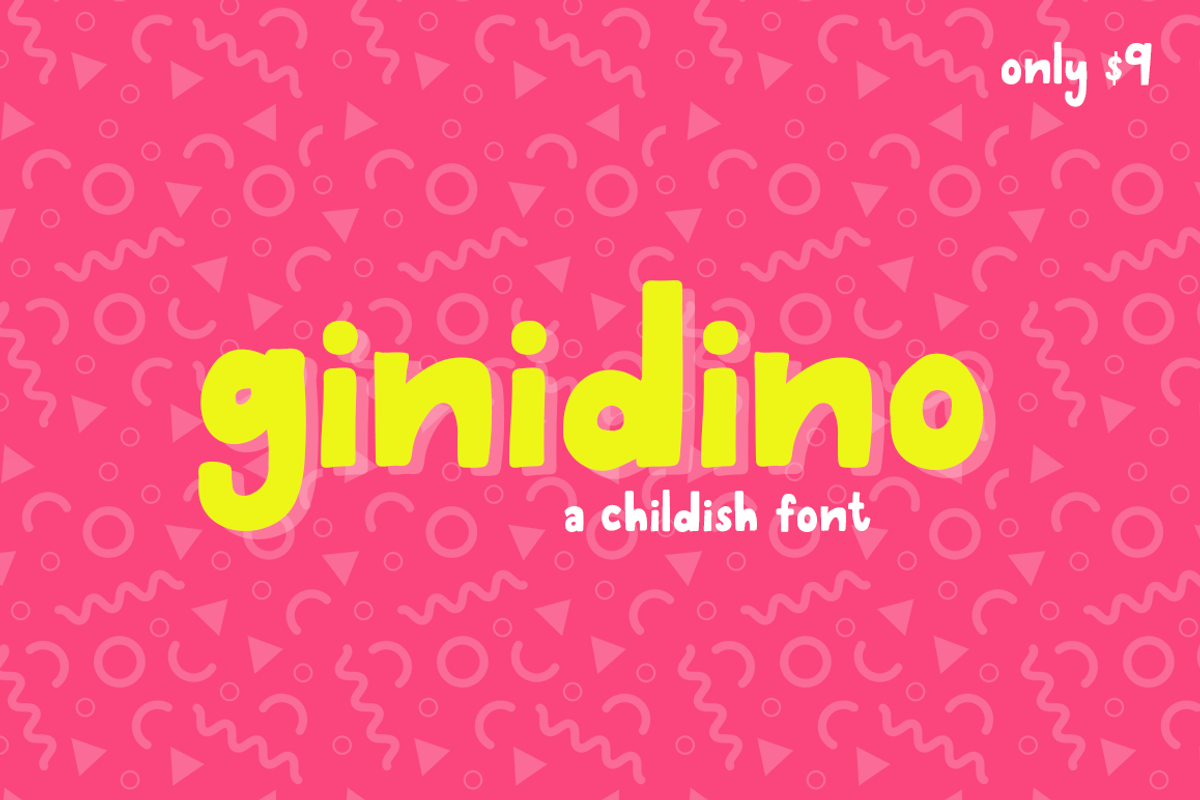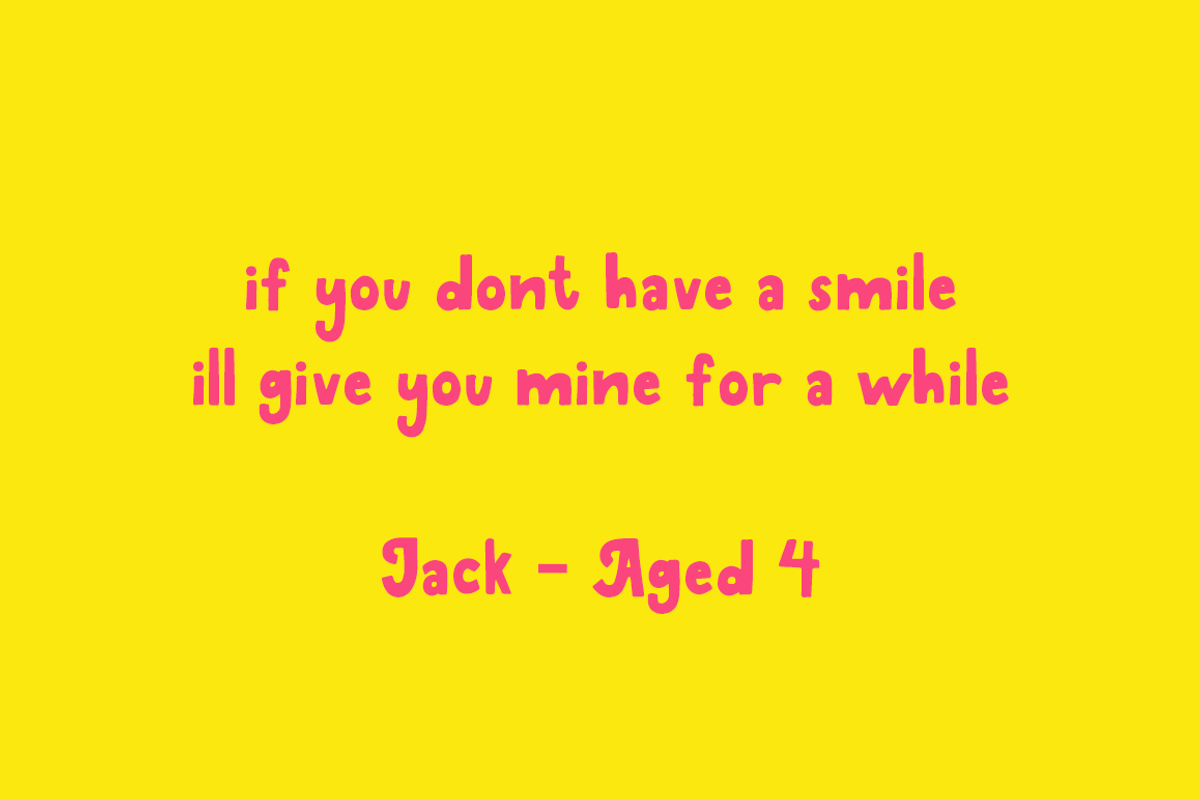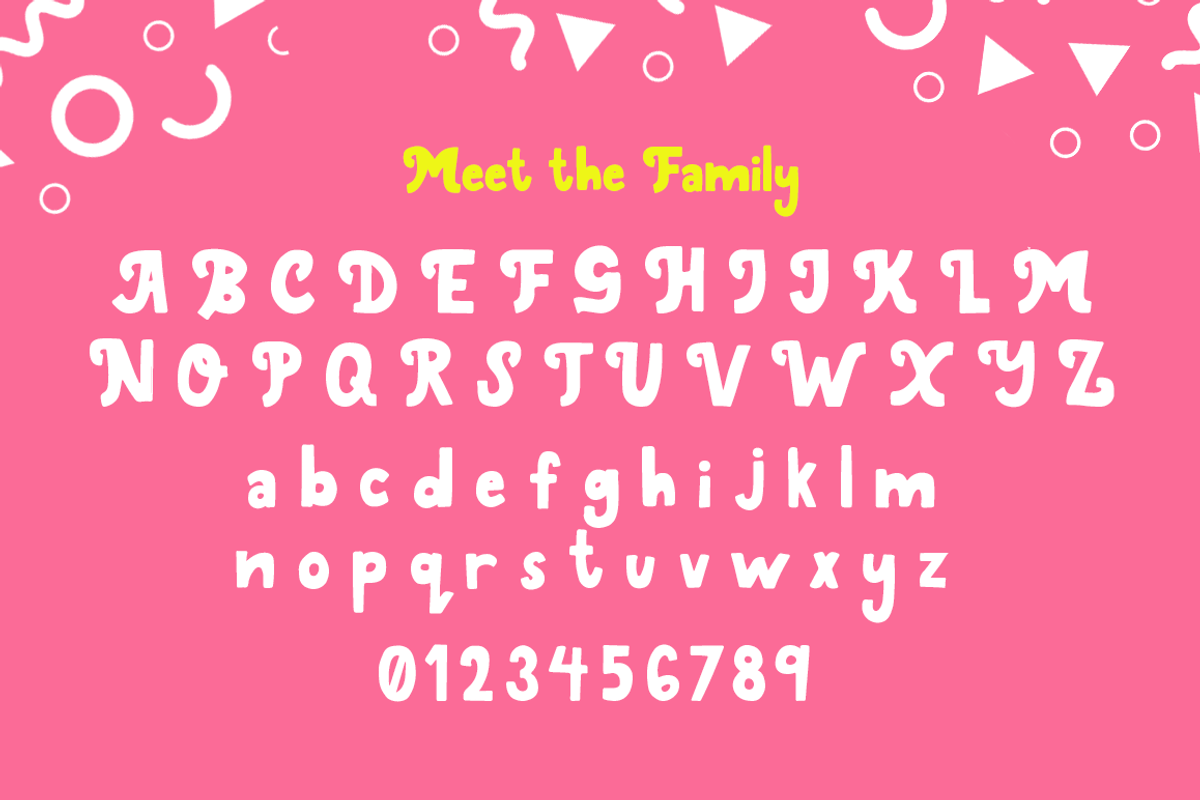
Ginidino Font
Introducing the Ginidino font a super fun, quirky and child theme typeface, perfect for those child related projects.
Ginidino Font by Salt & Pepper Designs fits naturally into Branding, posters, packaging, typography.